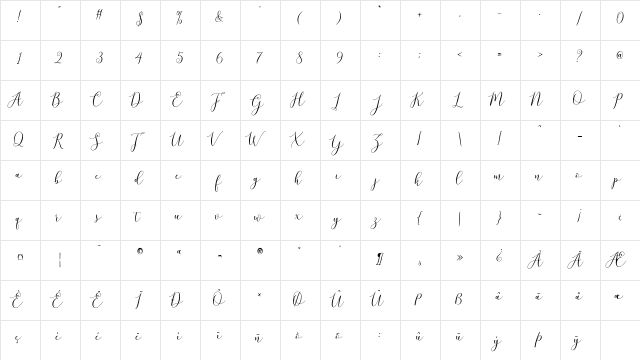
brittania script demo Regular
Design Context for brittania script demo Typeface
brittania script demo brings a calligraphic fluidity to the page — its connecting strokes and expressive curves give it an unmistakably human quality.
Font Pairing: Combine brittania script demo with a simple geometric sans for maximum contrast — the tension between flowing curves and clean structure is a classic typographic pairing.
Pro Tip: Pair brittania script demo with a clean sans-serif for supporting text. The contrast between fluid script and geometric structure creates an elegant typographic hierarchy.